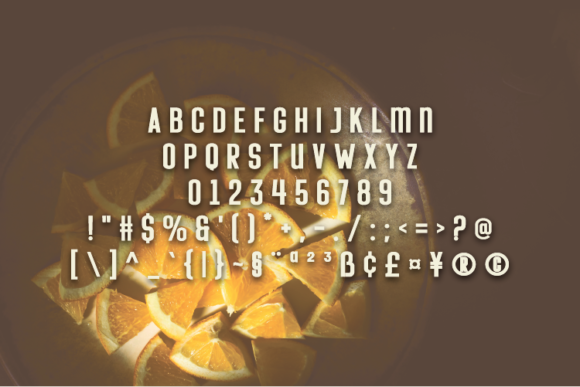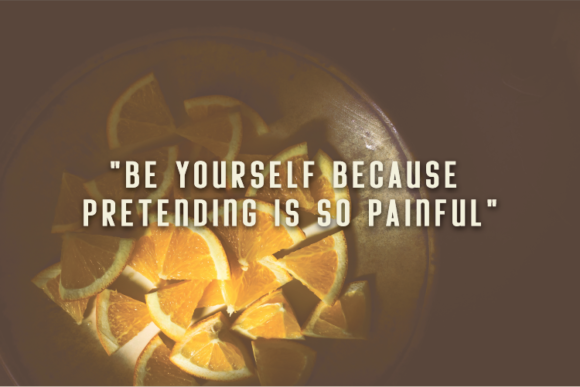
Introduction to Lemonelho Font
Lemonelho is a minimal and neat sans serif font.
Lemonelho Font offers exceptional quality and versatility, making it a valuable addition to your design toolkit. Whether you’re creating for personal projects or commercial use, Lemonelho Font delivers professional results.